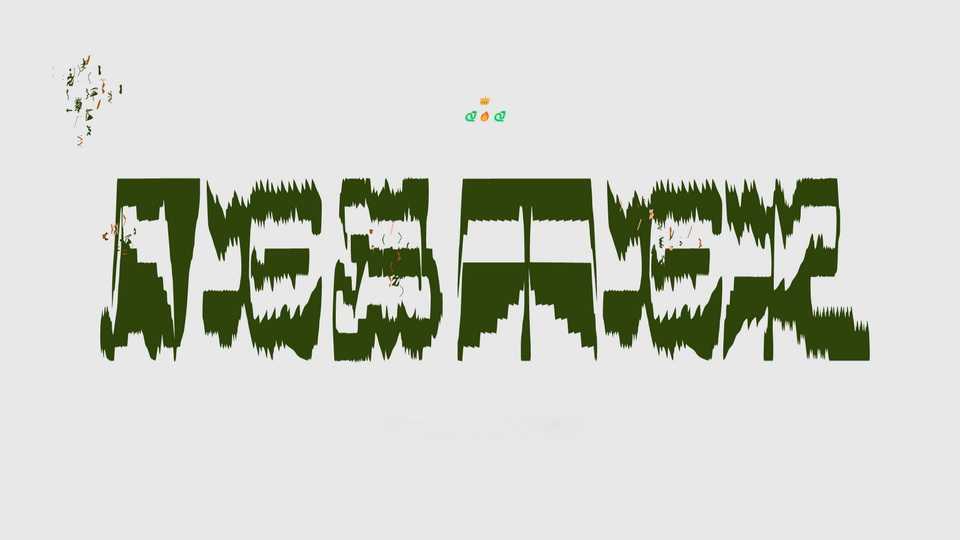
Download Jester font, an experimental typeface, a fork of Trickster, designed by Jean-Baptiste Morizot. Jester font family comes in 22 variations, each named after one of the cards of the divinatory tarot.